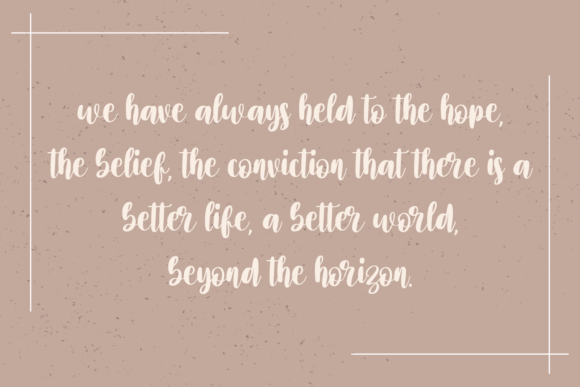
About Camelita Font
Camelita is a beautiful and light handwritten font with a unique feel and a stunning impact. It will add a luxury spark to any design project that you wish to create!